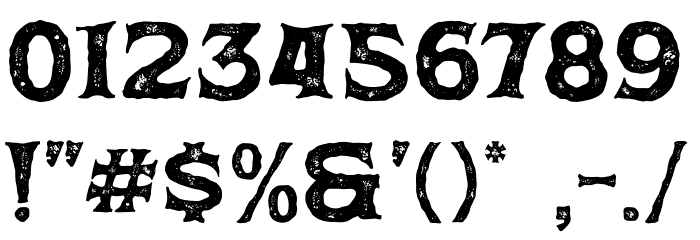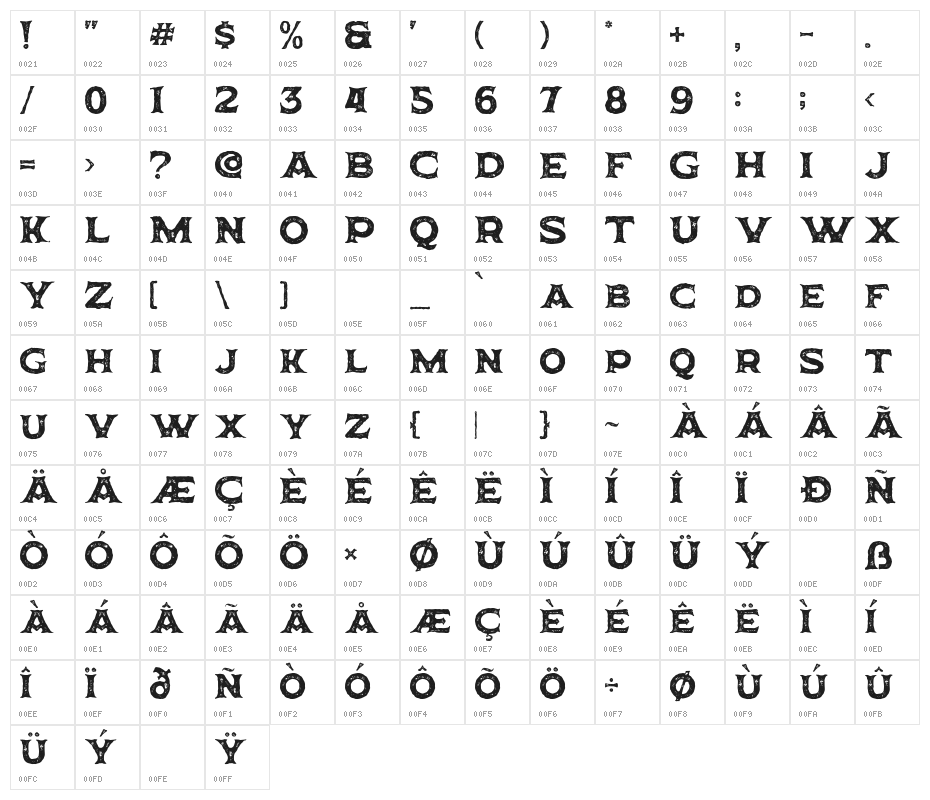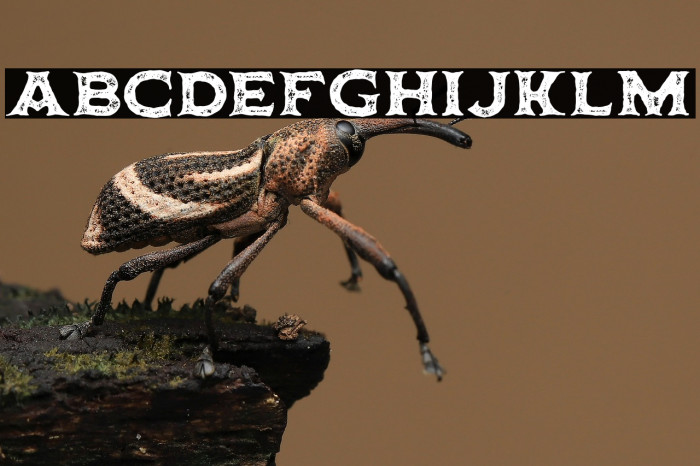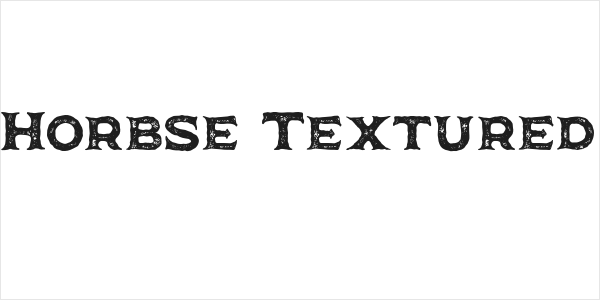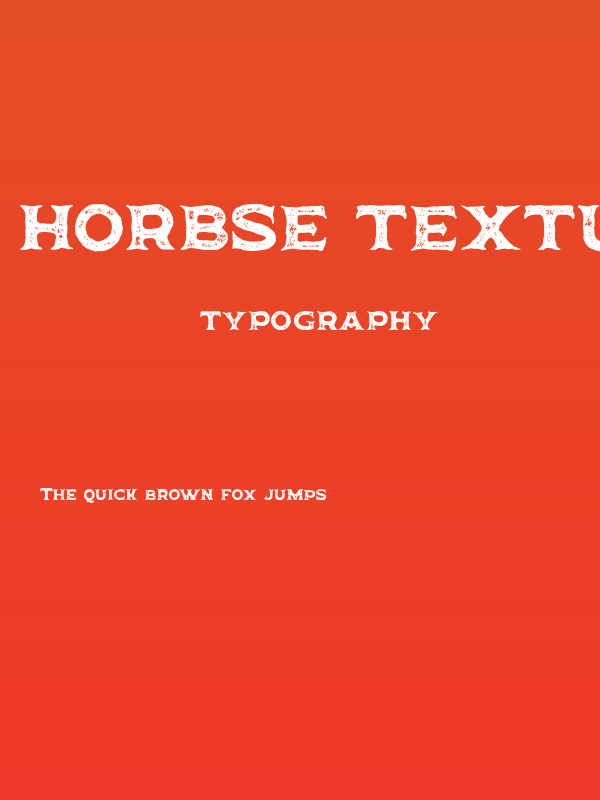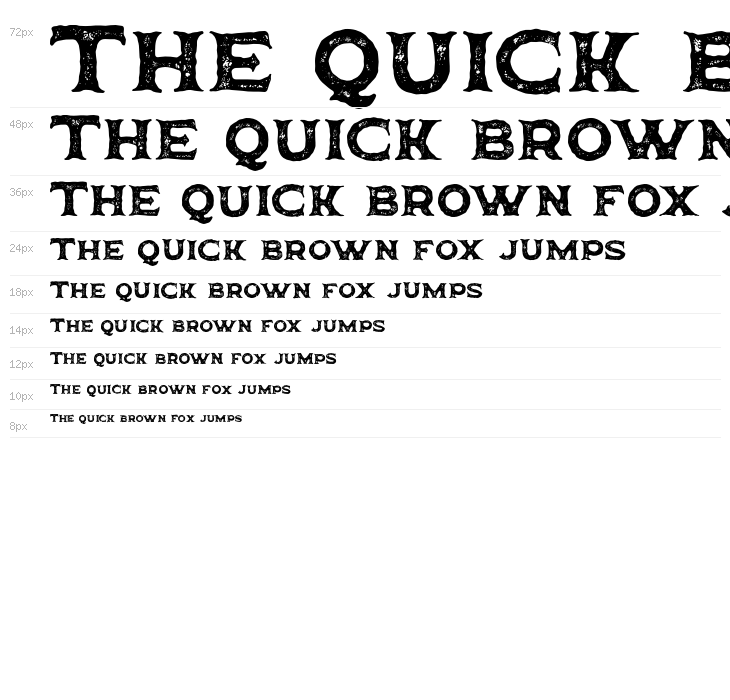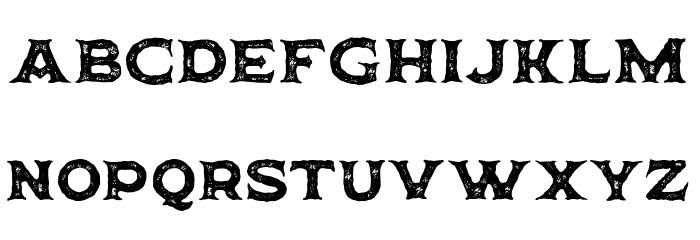
Horbse Textured Font
Horbse Textured Description
This font features a rugged, textured appearance that gives it a distinct, weathered look. The characters are bold and slightly irregular, with a distressed effect that suggests a vintage or hand-crafted style. The uppercase and lowercase letters maintain a consistent design, with thick strokes and uneven edges that add to the font's unique character. Numbers and special characters are similarly styled, ensuring a cohesive look across all glyphs. This font is ideal for projects that require a rustic or antique feel, such as posters, branding for artisanal products, or themed event invitations.
| Proposed Projects | Perfect for vintage posters, artisanal branding, themed event invitations, and rustic designs. |